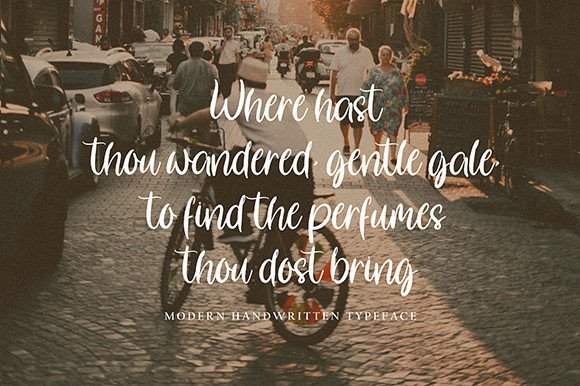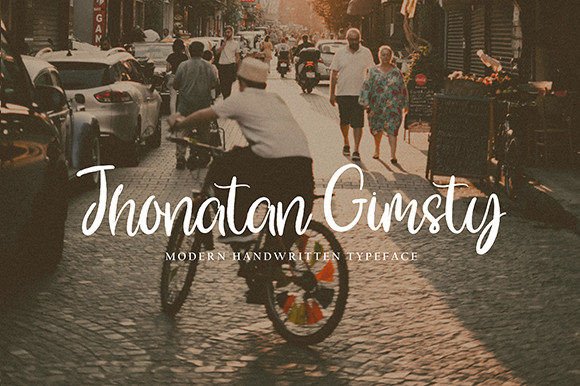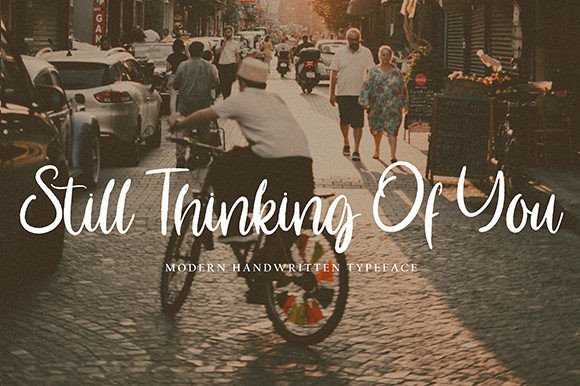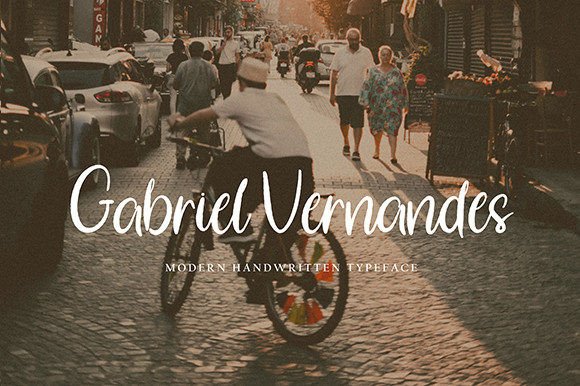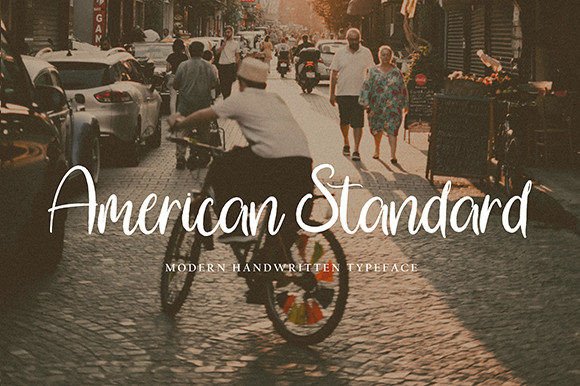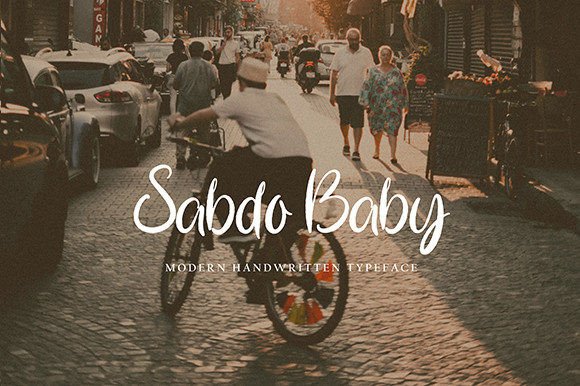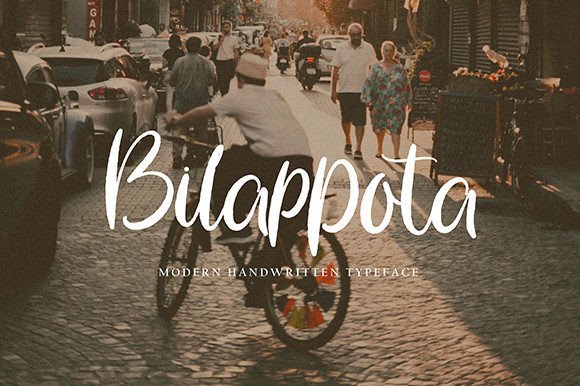
Bilappota Font: Elevate Your Designs with Elegance and Charm
In the world of typography, fonts play a crucial role in conveying the tone and personality of a design. For crafters and designers seeking a unique and captivating handwritten font, Bilappota is an excellent choice. This stunning font exudes elegance and charm, making it perfect for a variety of design applications. In this article, we’ll explore the beauty of Bilappota font and its versatility in enhancing your creative projects.
The Beauty of Bilappota Font
Bilappota font is a masterpiece of typographic artistry. Its elegant strokes and refined features make it an ideal choice for designs that require a touch of sophistication. The font’s unique character set and flowing script style evoke a sense of luxury and refinement, perfect for high-end branding, wedding designs, and special occasions.
Design Applications for Bilappota Font
Bilappota font is incredibly versatile and can be used in a wide range of design applications. Some of the most popular uses for this font include:
- Wedding Invitations: Add a touch of romance and elegance to your wedding invitations with Bilappota font. Its beautiful script style and refined features make it perfect for formal wedding designs.
- Thank You Cards: Express your gratitude in style with Bilappota font. Its charming and elegant design makes it ideal for thank you cards, gift tags, and other stationery.
- Quotes and Typography: Bilappota font is perfect for showcasing inspirational quotes, phrases, and typographic designs. Its elegant strokes and refined features make it easy to read and visually appealing.
- Greeting Cards: Create stunning greeting cards for special occasions such as birthdays, anniversaries, and holidays with Bilappota font.
- Logos and Branding: Use Bilappota font to create a unique and memorable logo for your business or brand. Its elegant design and refined features make it perfect for high-end branding.
- Business Cards: Elevate your business cards with Bilappota font. Its professional and elegant design makes it ideal for networking and business applications.
Why Choose Bilappota Font?
Bilappota font offers a range of benefits for designers and crafters. Some of the reasons to choose Bilappota font include:
- Unique and Elegant Design: Bilappota font features a unique and elegant design that sets it apart from other fonts.
- High-Quality Typography: Bilappota font is designed with high-quality typography in mind, ensuring that your designs look professional and polished.
- Versatility: Bilappota font can be used in a wide range of design applications, from wedding designs to branding and advertising.
- Easy to Read: Bilappota font is easy to read, making it perfect for designs that require a clear and concise message.
Tips for Using Bilappota Font
To get the most out of Bilappota font, here are some tips to keep in mind:
- Use it Sparingly: Bilappota font is a statement font, so use it sparingly to avoid overwhelming your design.
- Pair it with Other Fonts: Pair Bilappota font with other fonts to create a unique and visually appealing design.
- Experiment with Colors: Experiment with different colors to find the perfect match for your Bilappota font design.
Bilappota font is a stunning and elegant font that can elevate your designs to new heights. Its unique character set, flowing script style, and refined features make it perfect for a wide range of design applications. Whether you’re a designer or crafter, Bilappota font is an excellent choice for adding a touch of sophistication and elegance to your creative projects. So why not give it a try and see the difference it can make in your designs?